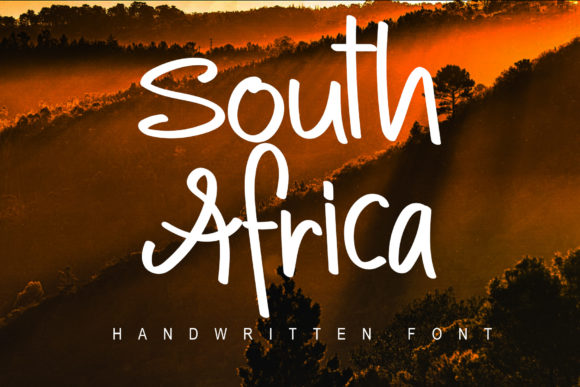
Journey into the world of South Africa, a script font poised to seduce your senses. Experience the enthralling charm of flowing characters that mimic the delicate poise of calligraphy. With South Africa's intimate embrace, transform your words into visual poetry, leaving an enduring impression on all who behold it.
Fashioned by the talented La Rosna, South Africa exudes an air of timeless elegance, perfectly adorning wedding invitations and thank you cards, lending a touch of grace to your heartfelt messages. Its versatility extends to quotes, greeting cards, and logos, where it breathes life into your words, invoking emotions and capturing hearts.
Step into the realm of skincare, where South Africa unveils its transformative power. Its soft curves and intricate details evoke a sense of luxury and care, seamlessly harmonizing with the essence of natural ingredients and holistic rituals. Elevate your skincare brand's identity with South Africa's enchanting allure, creating a visual symphony that resonates with customers seeking rejuvenation and harmony.
South Africa's beauty extends beyond its captivating form. Its versatility knows no bounds, adapting effortlessly to a myriad of creative endeavors. Whether it's business cards, branding campaigns, or social media designs, South Africa elevates your visual identity, leaving an indelible mark on your audience.
Unlock the allure of South Africa and unleash the boundless potential of your creative vision. Its elegance and versatility will captivate your audience, leaving them spellbound by your masterful use of typography. Embrace South Africa today and embark on a journey of visual enchantment.